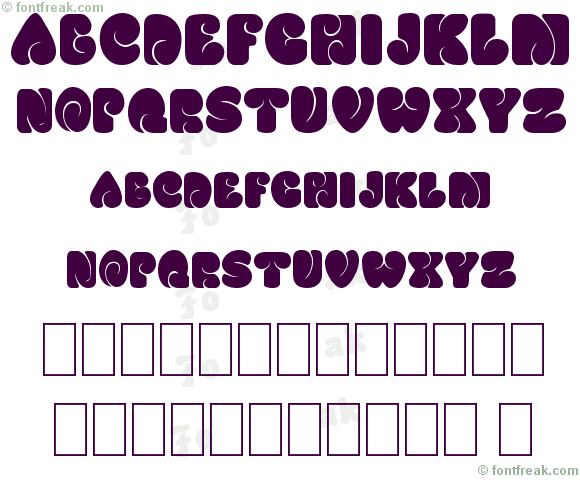
FATSOcaps
Fatso Caps, designed by Sam Wang, is a striking display typeface that embodies a unique blend of boldness and charm. This sans-serif font showcases an eye-catching, fat design that captures attention with its generous stroke weight and rounded edges. The lack of contrast in the letterforms gives it a uniformity that enhances its readability, making it ideal for impactful designs. The spacing is meticulously balanced, allowing for clear legibility while maintaining a playful aesthetic that is hard to resist.
This font shines in various applications, particularly in contexts where making a statement is essential. It serves as an excellent choice for movie posters, where its bold character can convey excitement and drama. Additionally, Fatso Caps is perfect for restaurant menus, lending a casual yet modern vibe that complements a variety of dining experiences. Its unique style also makes it suitable for branding projects, especially for small businesses looking to establish a memorable identity. Furthermore, graphic designers can utilize this font in promotional materials and social media graphics, ensuring that their content stands out in crowded feeds.
What sets the Fatso Caps font apart is its ability to merge fun with functionality, making it a go-to option for those who want their designs to resonate with an audience. With its captivating presence and adaptability, the Fatso Caps font free download is a must-have for anyone looking to elevate their typographic choices.